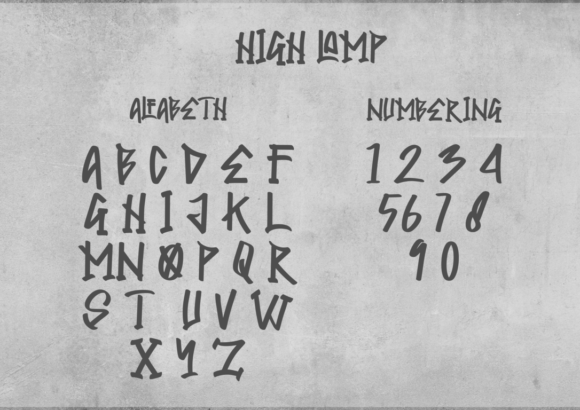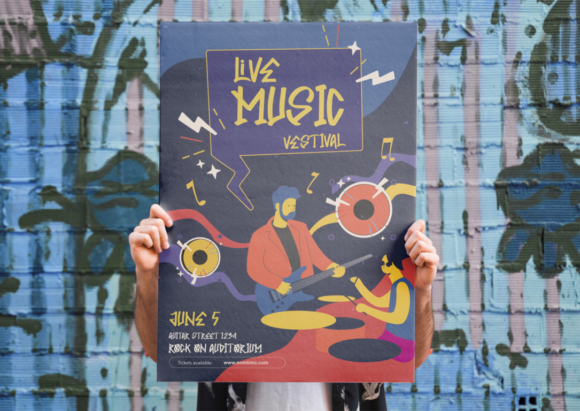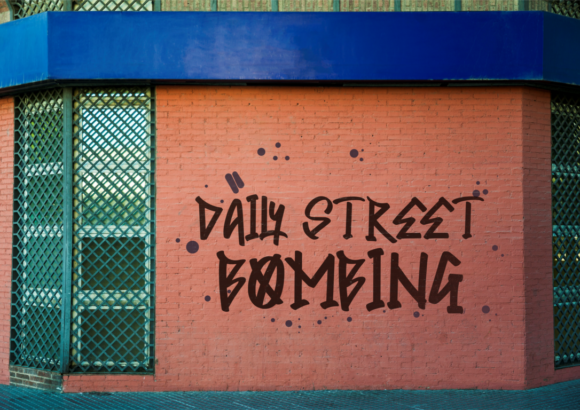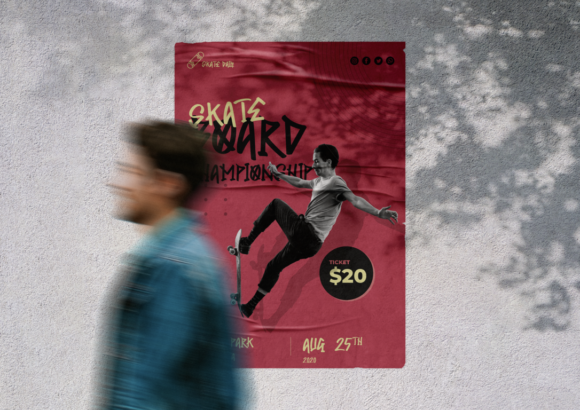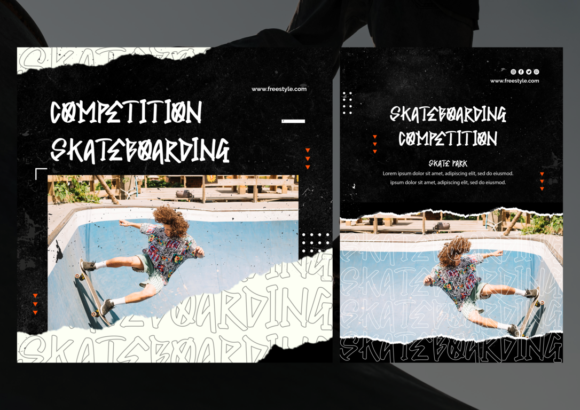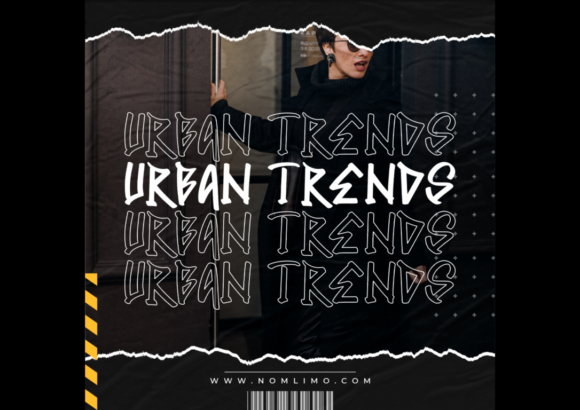
The Ultimate Guide to High Lamp Font: Unleashing Your Creative Potential
I’ll never forget the time I was working on a project for a client who needed a bold, eye-catching font to make their brand stand out. I spent hours scouring the internet for the perfect font, but nothing seemed quite right. That was until I stumbled upon High Lamp Font, a graffiti-styled display font that instantly caught my attention. With its futuristic, street art vibe, I knew I had found the perfect fit for my client’s project.
First Impressions: A Love Letter to High Lamp Font
High Lamp Font is an awesome, graffiti-styled display font that has a futuristic, street art vibe. This font is suitable for designs such as t-shirts, sportswear, logos, advertisements, clothing, and more. Here’s what I love about it:
• ✨ Unique and bold design that grabs attention
• ✅ Highly versatile and adaptable to various design projects
• ⚡️ Perfect for creating eye-catching headlines and titles
• 🎨 Great for designs that require a street art or graffiti feel
The Not-So-Perfect: A Few Quirks to Consider
While High Lamp Font is an amazing font, it’s not without its quirks. Here are a few things to keep in mind:
• 🤔 May not be suitable for body text or small font sizes due to its bold and stylized design
• ⚠️ Limited legibility when used in all caps or with certain letter combinations
High Lamp Font comes with a range of OpenType features and glyphs that can enhance your design. Here are a few tips on how to access and use them:
• Use the OpenType features to create stylistic alternates, ligatures, and other effects
The Story Behind High Lamp Font
High Lamp Font was designed by a team of creatives who wanted to create a font that captured the essence of street art and graffiti. Inspired by the urban landscape and the world of streetwear, they crafted a font that’s bold, stylized, and attention-grabbing.
Font Name High Lamp Font
Author nomlimofont
What is High Lamp Font? High Lamp Font is a graffiti-styled display font with a futuristic, street art vibe.
What can I use High Lamp Font for? High Lamp Font is suitable for designs such as t-shirts, sportswear, logos, advertisements, clothing, and more.